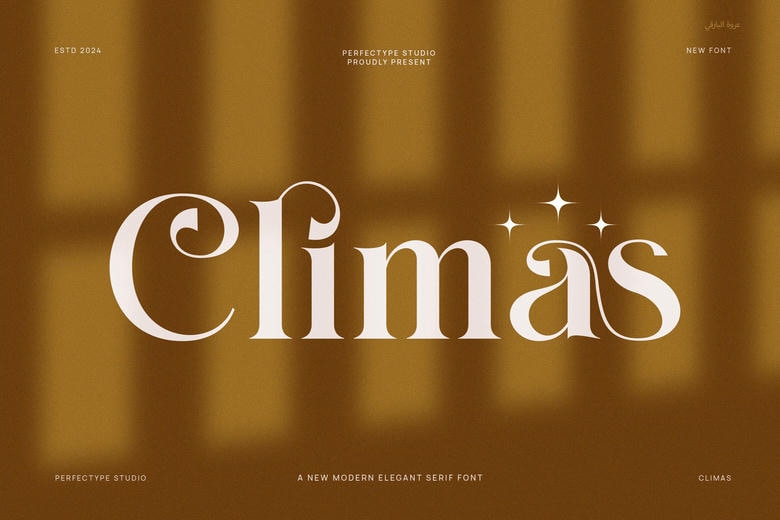
Climas Font
Climas is a serif typeface that is designed with sophistication and opulence such that it suits all your design requirements. This typeface has numerous beautiful and special ligature and alternate choices. This font is highly appropriate to your different projects like branding, logos, social media posts, advertisements, labels, product packaging, photography, wedding designs, watermarks, invitation product designs, stationery, and any project, created at a high price. readability level.
Climas Serif Font